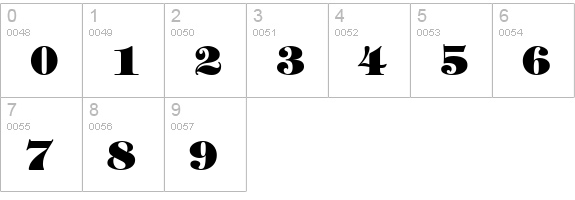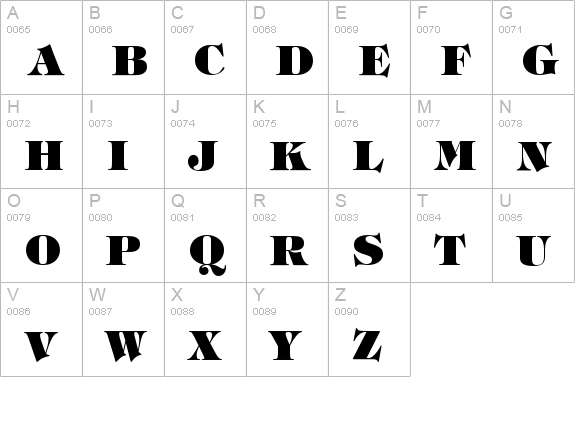
TimpaniHeavy Font Details
Introducing TimpaniHeavy, a bold and impactful font that commands attention with its strong presence. With its thick strokes and robust letterforms, TimpaniHeavy exudes confidence and power, making it the perfect choice for headlines, titles, and logos. This font is not only visually striking but also versatile, as it can be used both in print and digital media. Its boldness adds a touch of drama and flair to any design, making it ideal for projects that require a bold statement. But what sets TimpaniHeavy apart is that it is not just a visually stunning font—it is also freely available to download at FontsMarket.com. Yes, you read that right! You can now elevate your designs without breaking the bank. Whether you're a professional designer or a DIY enthusiast, TimpaniHeavy is a font that won't disappoint. With its freely accessible availability, TimpaniHeavy allows designers of all levels to experiment and explore its versatility, without any limitations. So, go ahead and unleash your creativity with this remarkable typeface. Whether you're looking to create impactful advertising campaigns, eye-catching posters, or stunning website headers, TimpaniHeavy will help you make a lasting impression. Its bold and commanding presence will ensure that your message is heard loud and clear. So why wait? Download TimpaniHeavy today and experience the freedom to create captivating designs that truly stand out. Get ready to make a bold statement with this exceptional font, available for free at FontsMarket.com.